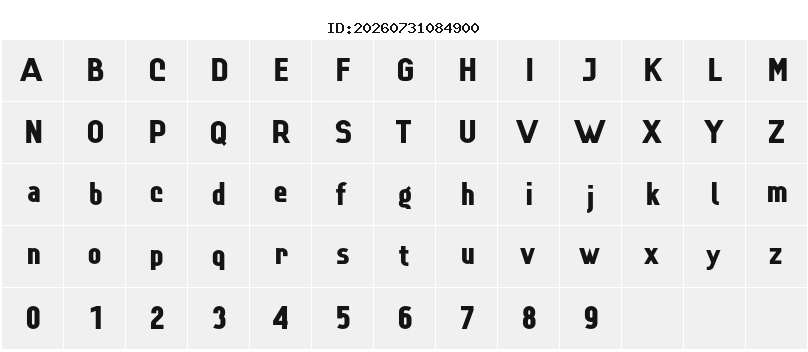
Lindau Preview
• Font Name: Lindau
• Font Style: Black
• Full Font Name: Lindau-Black
• Designer: Markus Waeger
About Lindau.otf
Lindau.otf is a modern, elegant sans-serif font designed for ultimate readability and visual harmony. Perfect for branding, headlines, web design, and print materials.